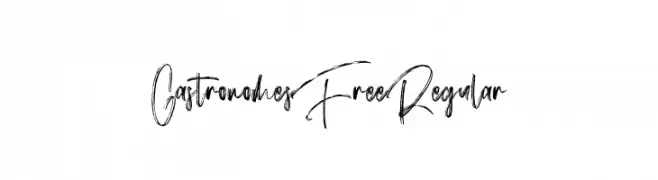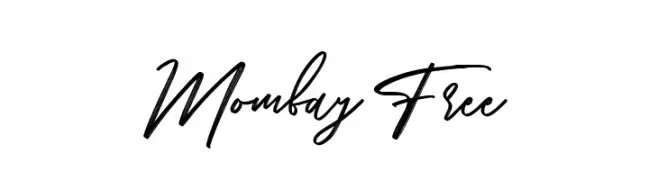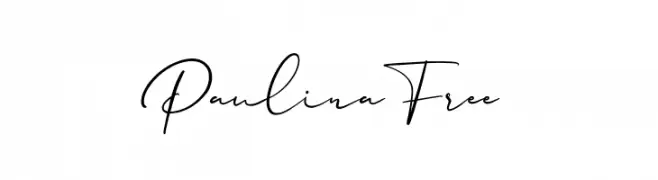
• Alentropics Free
A playful, artistic handwritten font with dynamic strokes and whimsical flair.
• Cliquelly Free Regular
An elegant, flowing script font with a natural handwriting style.
• Gastronomes Free Regular
A dynamic, expressive handwritten font with fluid, brush-like strokes.
• Mathew Rohas Free
A bold, energetic script font with a hand-drawn, dynamic style.
• Sabrionte Free Regular
A dynamic and flowing script font with elegant, connected letterforms.
• Mombay Free
A dynamic, flowing script font with elegant, interconnected strokes.
• Paulina Free
An elegant, flowing script font with smooth, continuous strokes and graceful curves.
• Dawsons Script Free
A fluid and elegant script font with graceful cursive strokes.
• Carols Night Free Regular
An elegant, flowing script font with a natural handwriting style.
• Matlagih Free
A bold, dynamic script font with a brush lettering style.